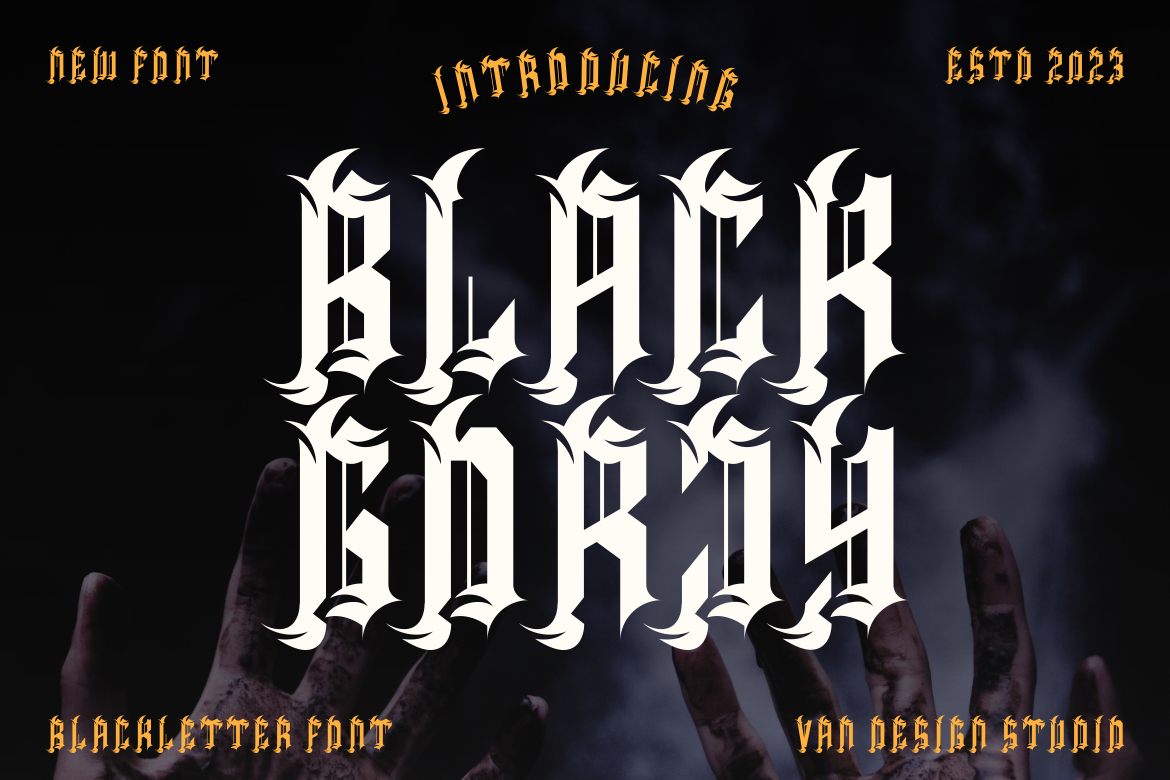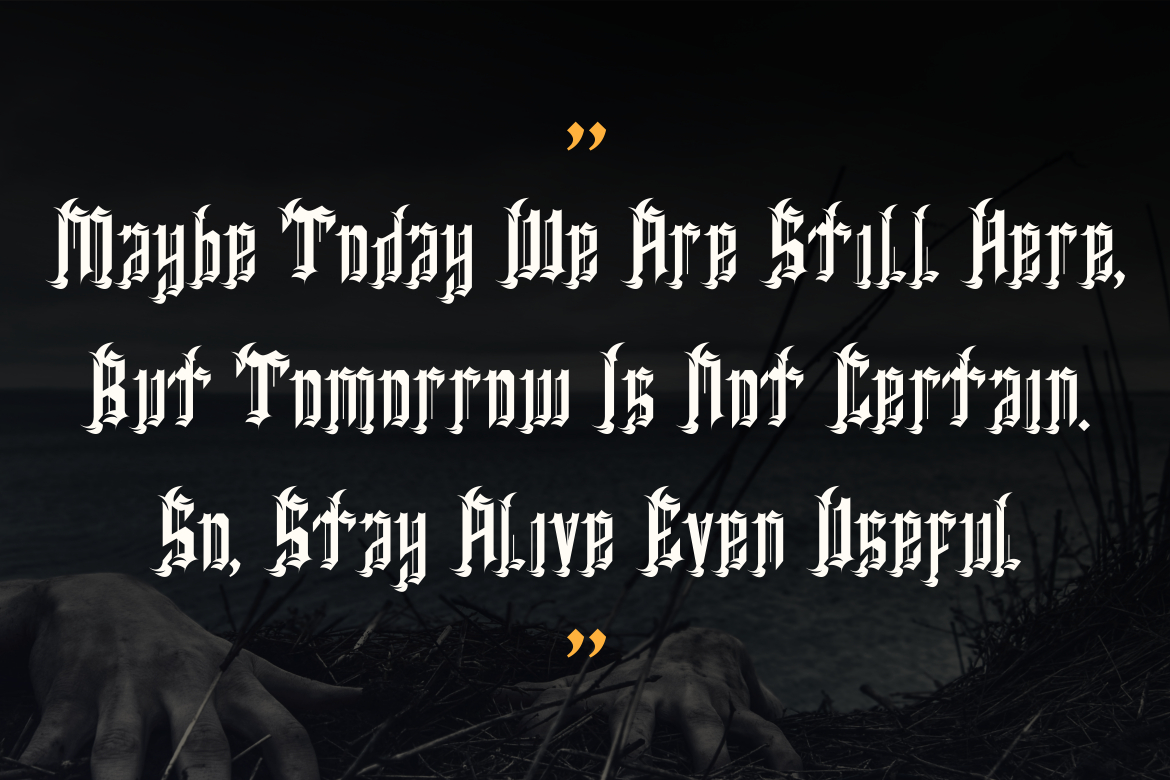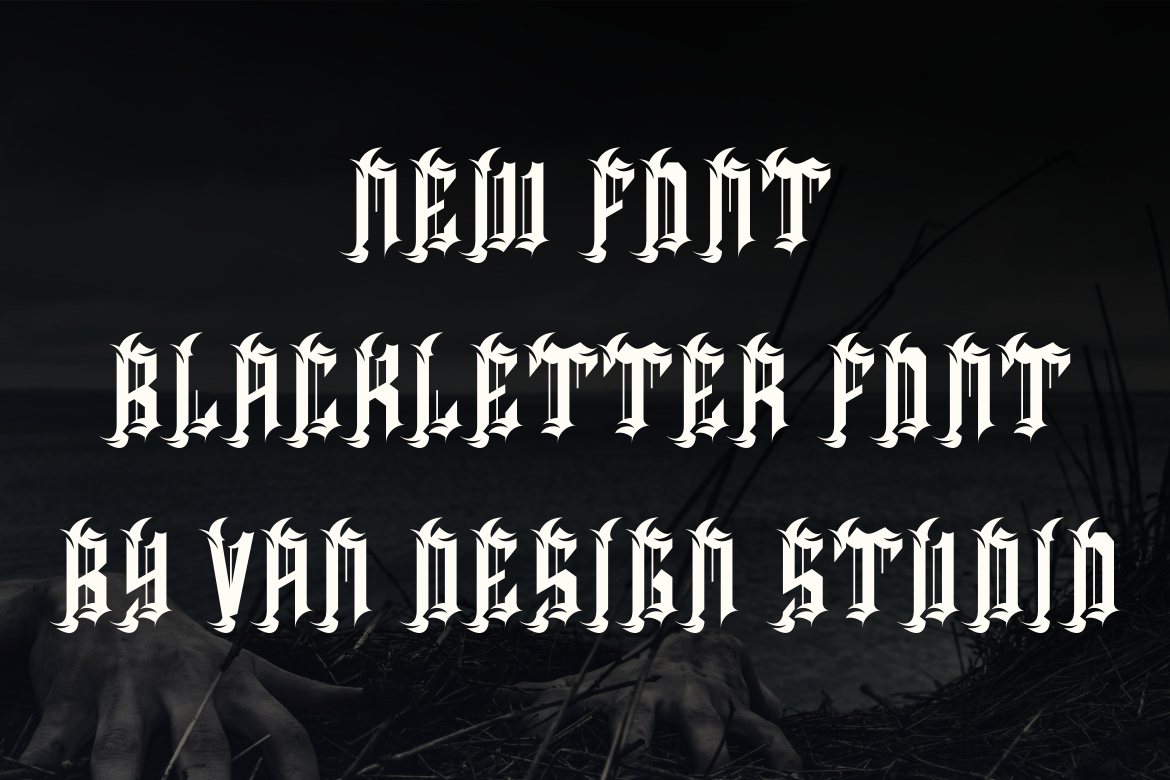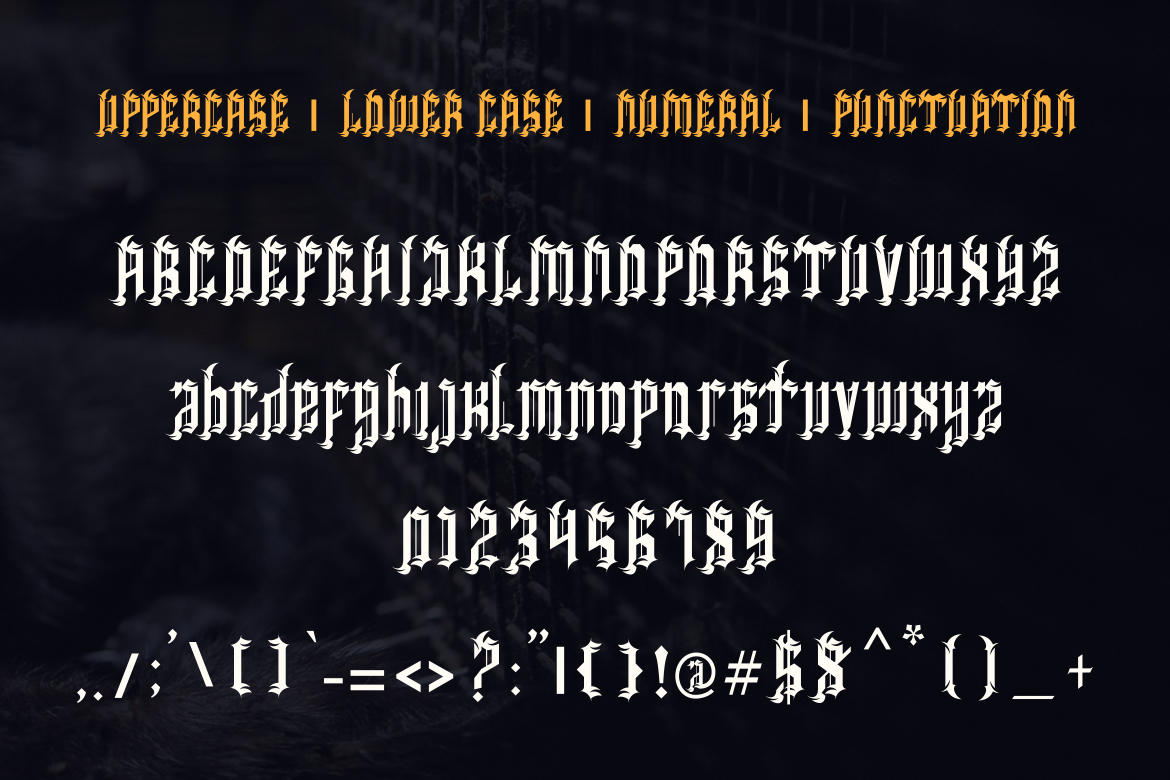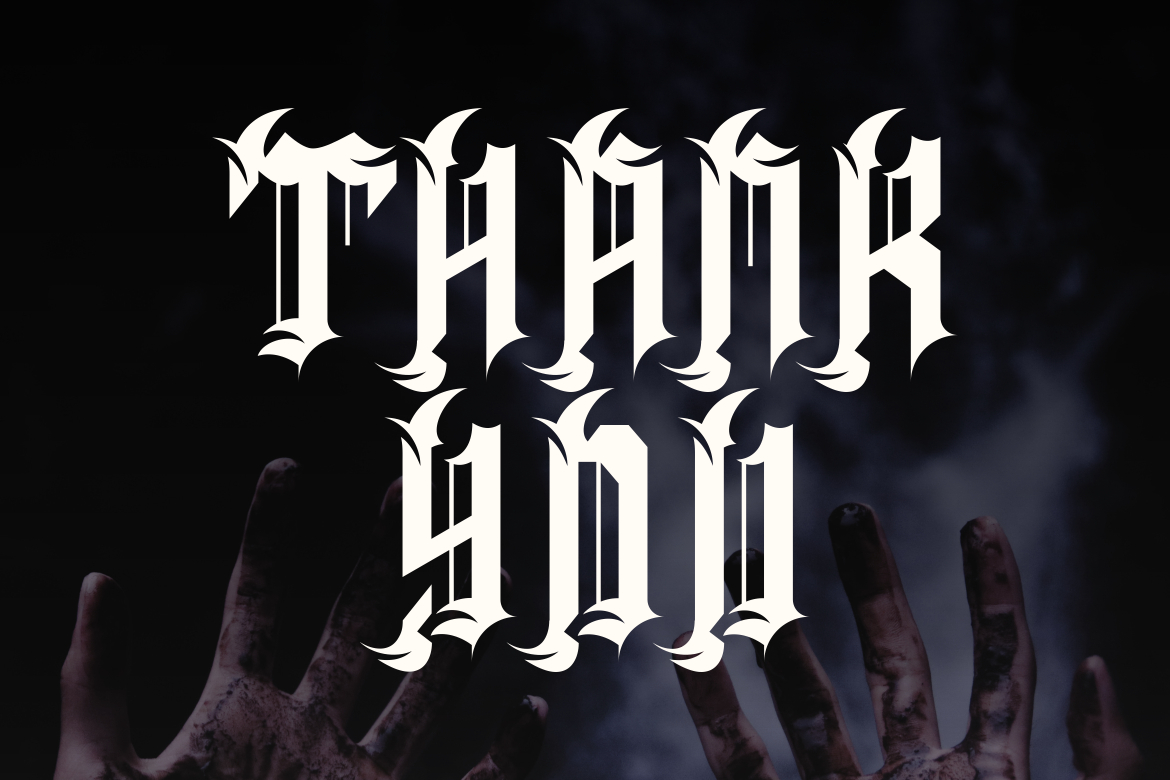
Black Gorjy Font
About Black Gorjy Font
Black Gorjy is a bold and thick lettered blackletter font. Add it confidently to your projects, and you will love the results.